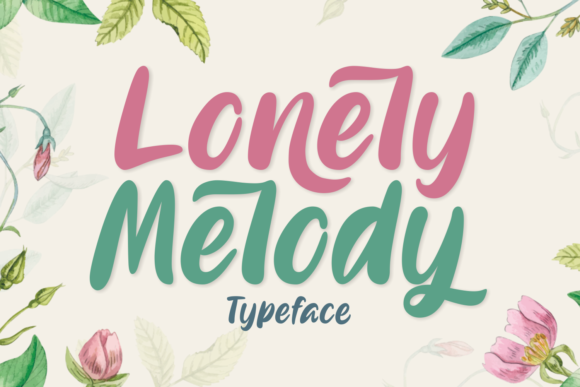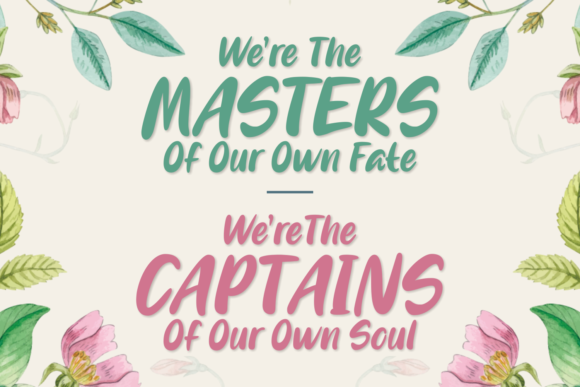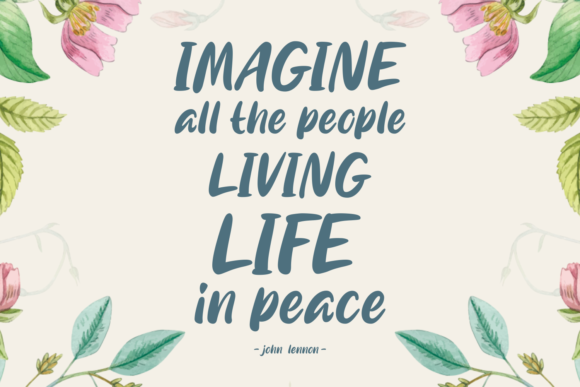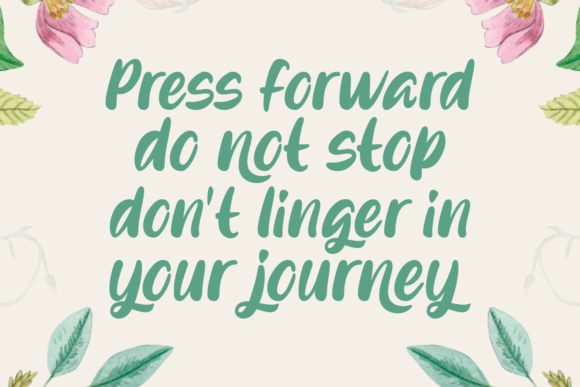
Lonely Melody Font
About Lonely Melody Font
Easy and elegant like a warm summer day, Lonely Melody is the perfect font to turn any design project into a charming stand out.